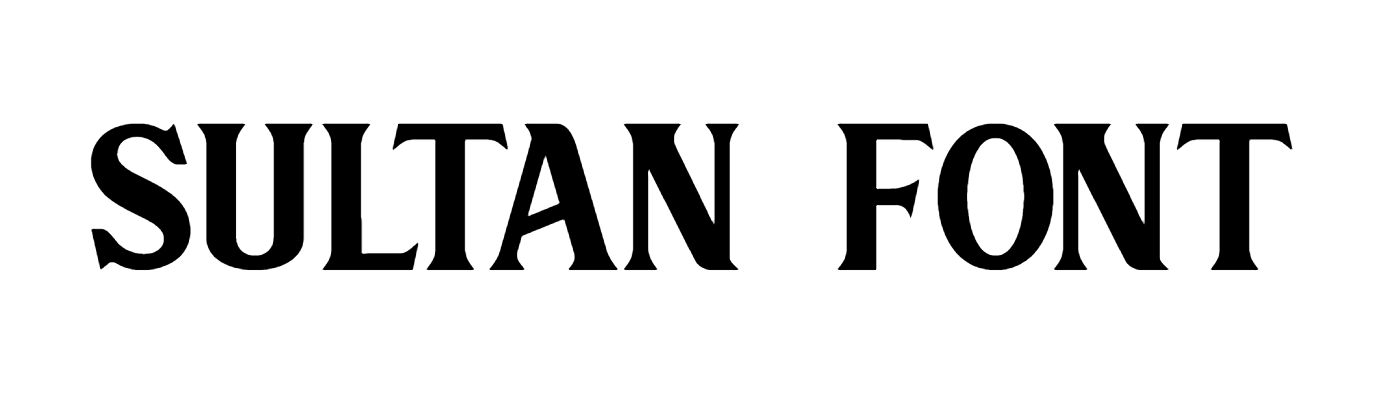
Sultan
- Designer: Riyadh Rahman
Sultan covers the full alphabet in upper and lowercase, plus all ten numbers, so you can set names, dates and prices without switching fonts. Everyday marks like &, !, ? and @ are there too. Thanks to its accented letters, it also works for Spanish, French, German, Portuguese and Italian, not just English.
Designers usually reach for fonts like Sultan when they're making posters, logos and eye-catching headlines. Its lowercase letters are small compared to the capitals, so set it a size or two bigger than usual. Use it for one standout word or headline and let simpler fonts handle the rest.
Yes. Sultan includes the accented letters needed for Spanish, French, German, Portuguese and Italian, so it works for more than just English.